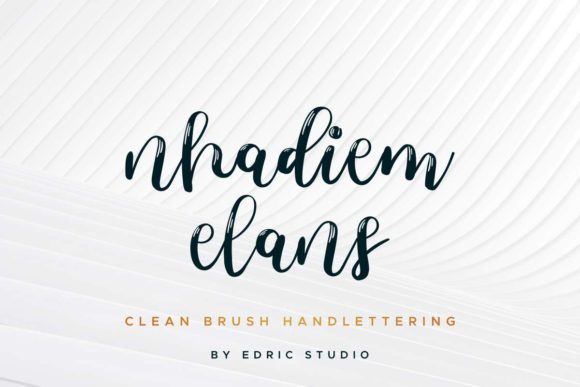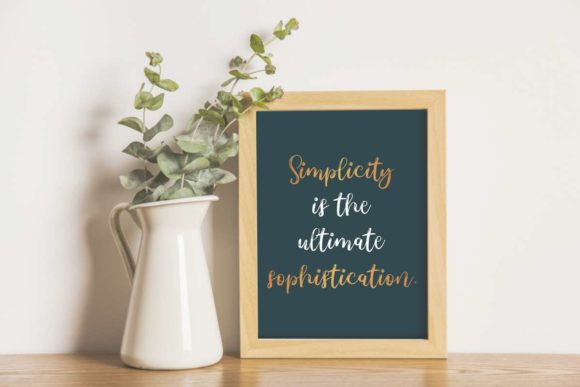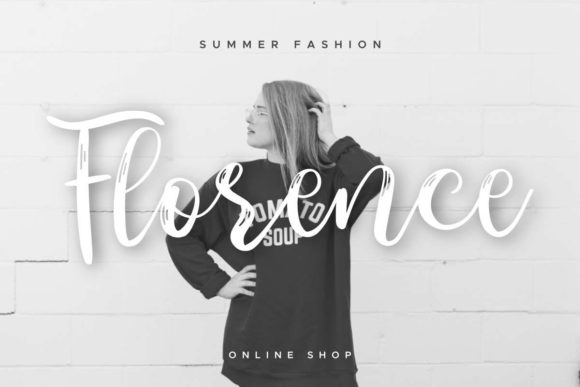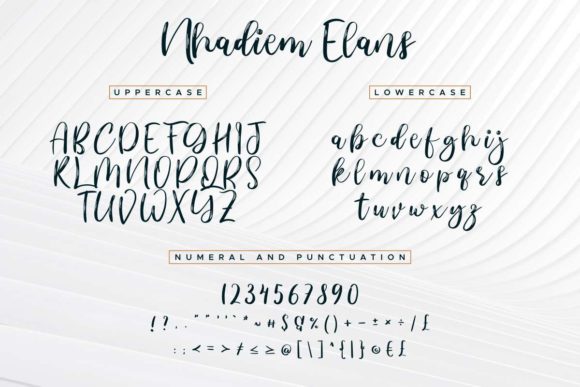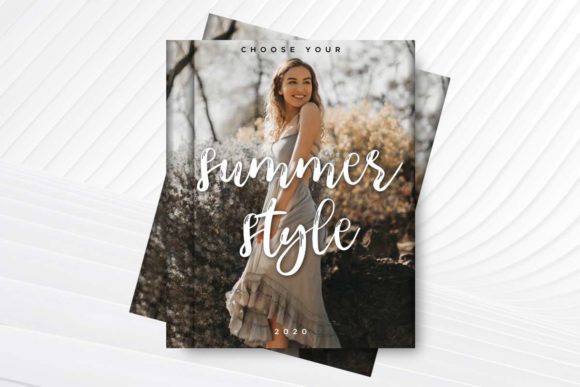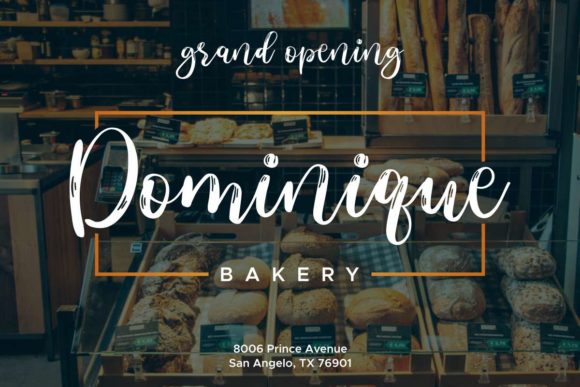
Introduction to Nhadiem Elans Font
There’s something magical about the moment when a design project comes together – the perfect balance of typography, color, and texture. For many designers, this is the moment when the words on the page spring to life, and the message shines through. But what makes a font truly special? For us, it’s all about the details – the way the letters flow, the subtle nuances of style, and the emotional connection it evokes.
That’s exactly why we’re excited to dive into the stunning Nhadiem Elans Font. With its elegant, handwritten feel and classic calligraphy roots, this high-quality font is a design resource that’s sure to elevate any creative project. Whether you’re working on a logo, a brochure, or a social media campaign, Nhadiem Elans Font offers a level of sophistication and refinement that’s hard to find in other fonts.
Key Features of Nhadiem Elans Font
- Unique and elegant design, perfect for creative projects and artistic expressions.
- Transparent background, allowing for seamless integration with any design resource or image.
- Designed to be highly legible, with a clear and easy-to-read font face.
- Resolution-independent, ensuring that the font remains sharp and clear at any size or resolution.
- Perfect for use in a variety of creative contexts, from print design to digital media.
Honest Review: Nhadiem Elans Font
I recently stumbled upon the Nhadiem Elans Font, and I must say it’s been a great addition to my design resources. This font is perfect for creative projects that require a touch of elegance and sophistication.
One of the standout features of the Nhadiem Elans Font is its high-quality design. The font is crisp, clean, and visually appealing, making it ideal for use on both light and dark backgrounds. I particularly appreciate that it includes a transparent background option, which gives me more flexibility when designing.
- ✨ Transparent background option for added flexibility
- ⚠️ Limited character set, which may be a drawback for some users
- ⚠️ May not be suitable for use in complex, multi-layered designs
Overall, I’m impressed with the Nhadiem Elans Font. It’s a great addition to my design arsenal, and I’m confident it will be a valuable resource for many designers. If you’re looking for a high-quality font for your creative project, I’d definitely recommend giving it a try.
The Nhadiem Elans Font is a high-quality design resource perfect for any creative project. With a transparent background and elegant style, it’s a great addition to any design.
To get the most out of the Nhadiem Elans Font, use it in combination with other design elements to create a cohesive look. Experiment with different font sizes, colors, and styles to find the perfect combination for your design.
Common Use Cases for Nhadiem Elans Font
The Nhadiem Elans Font is perfect for use in a variety of creative projects, including logos, brochures, business cards, and more. Its elegant style and transparent background make it a great choice for designs where you want to add a touch of sophistication and class.